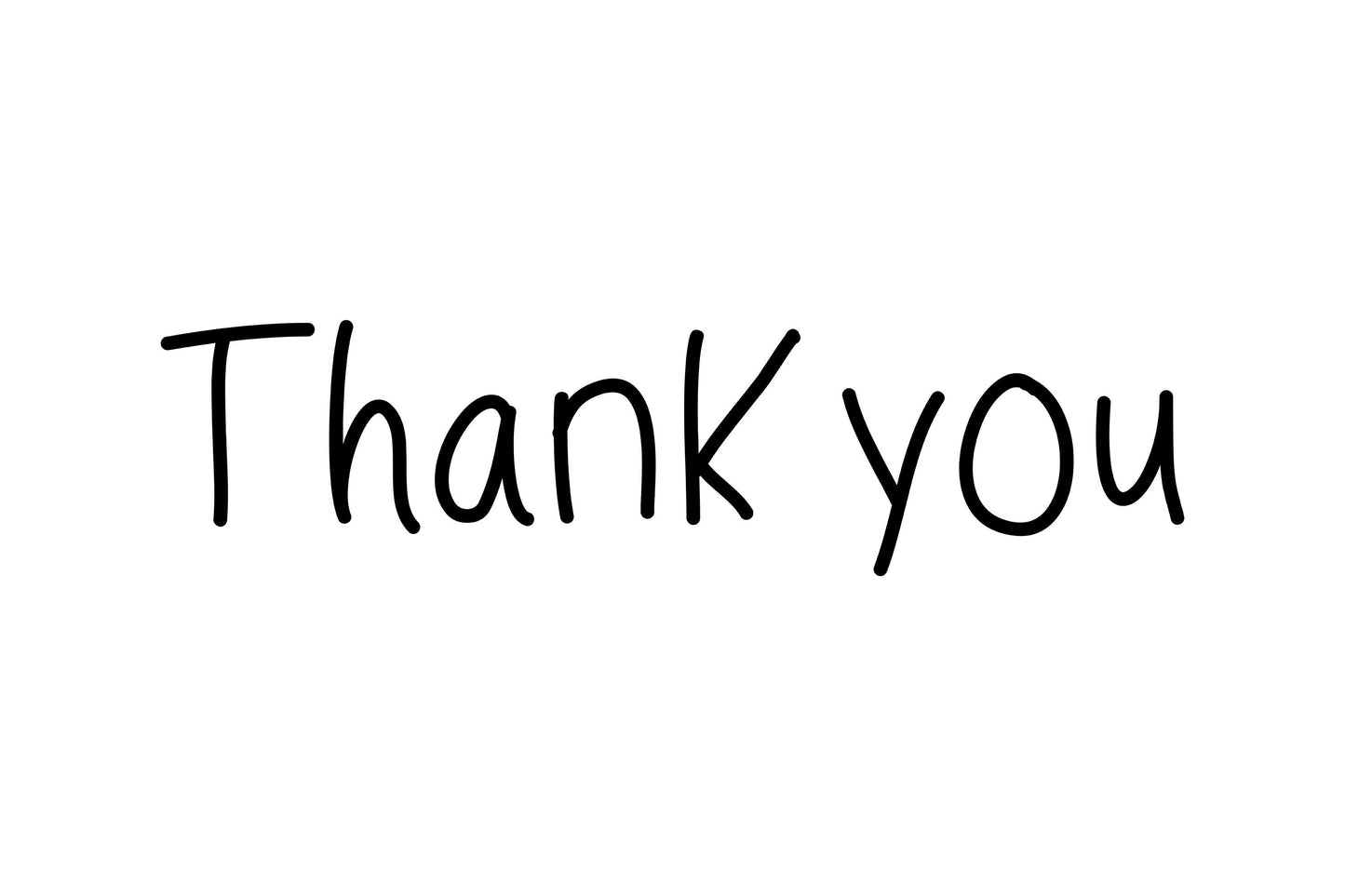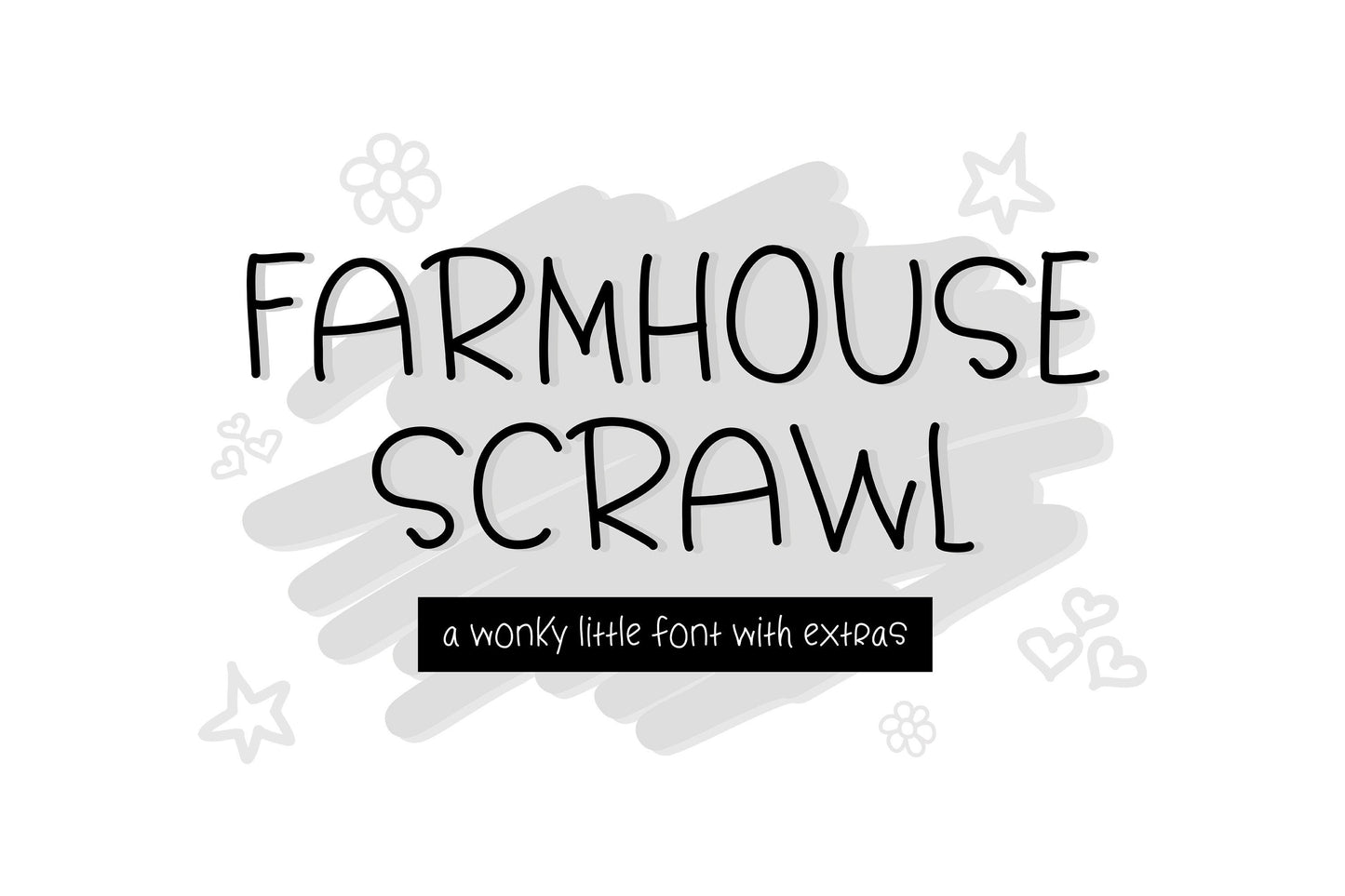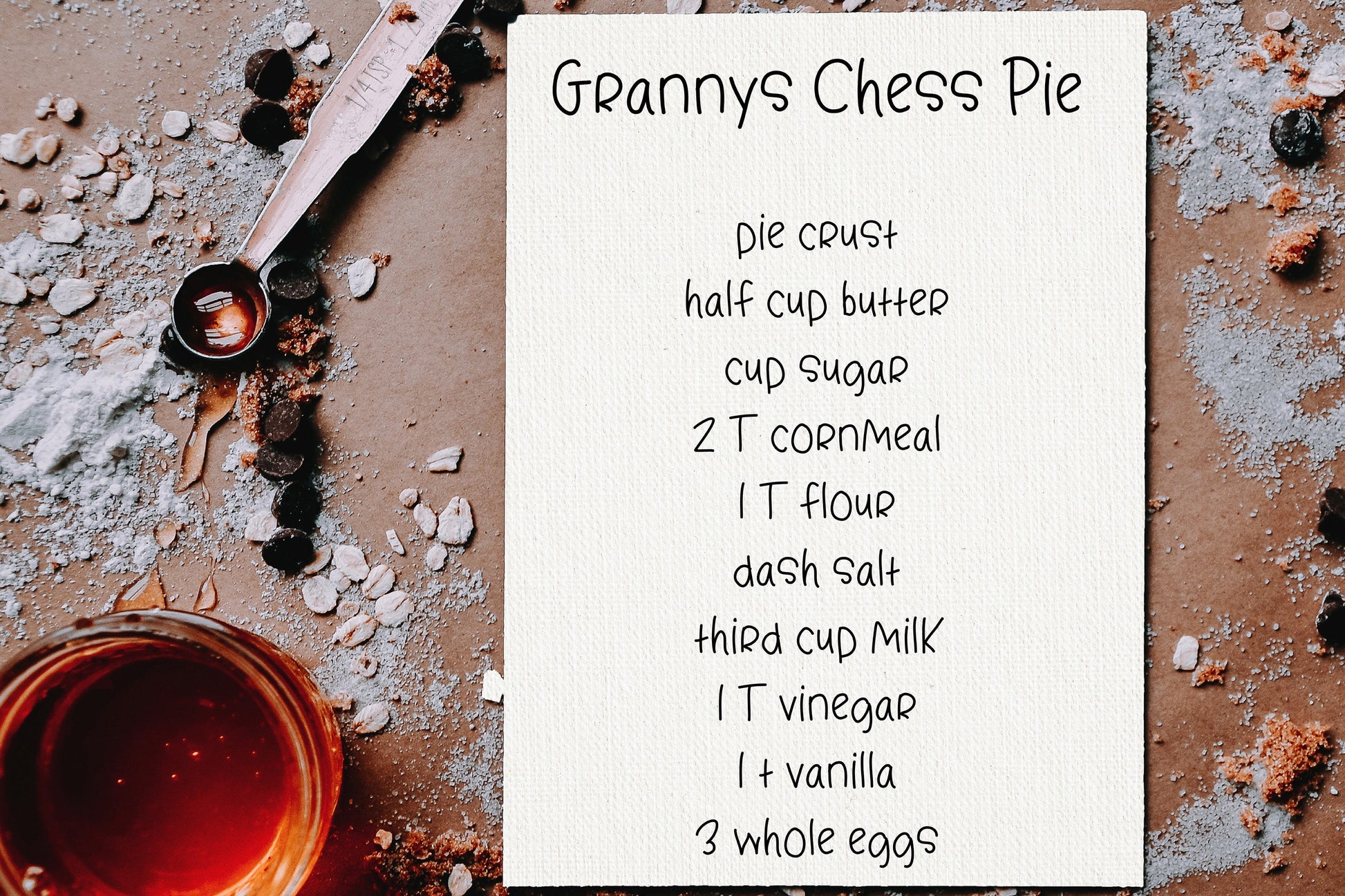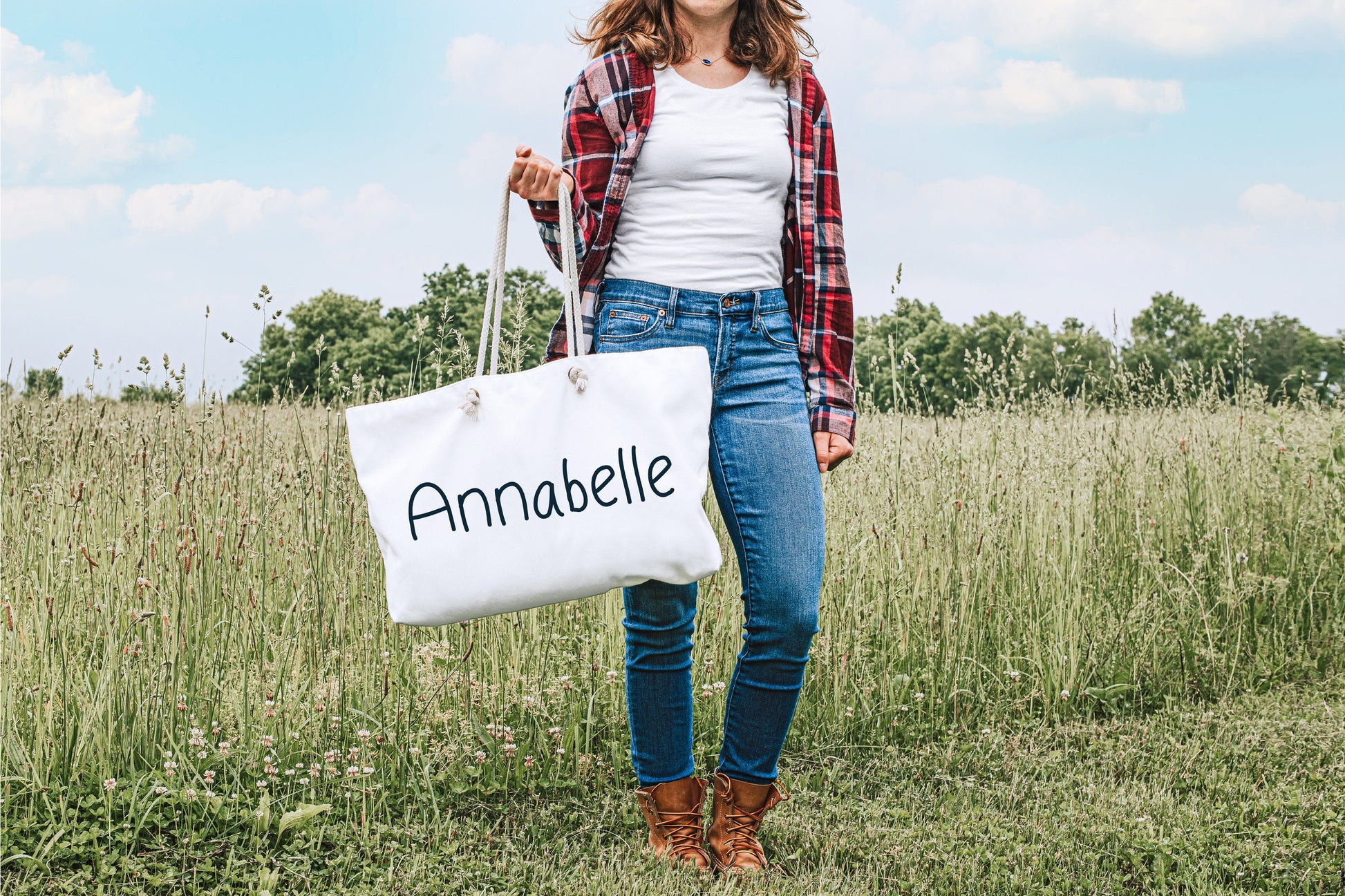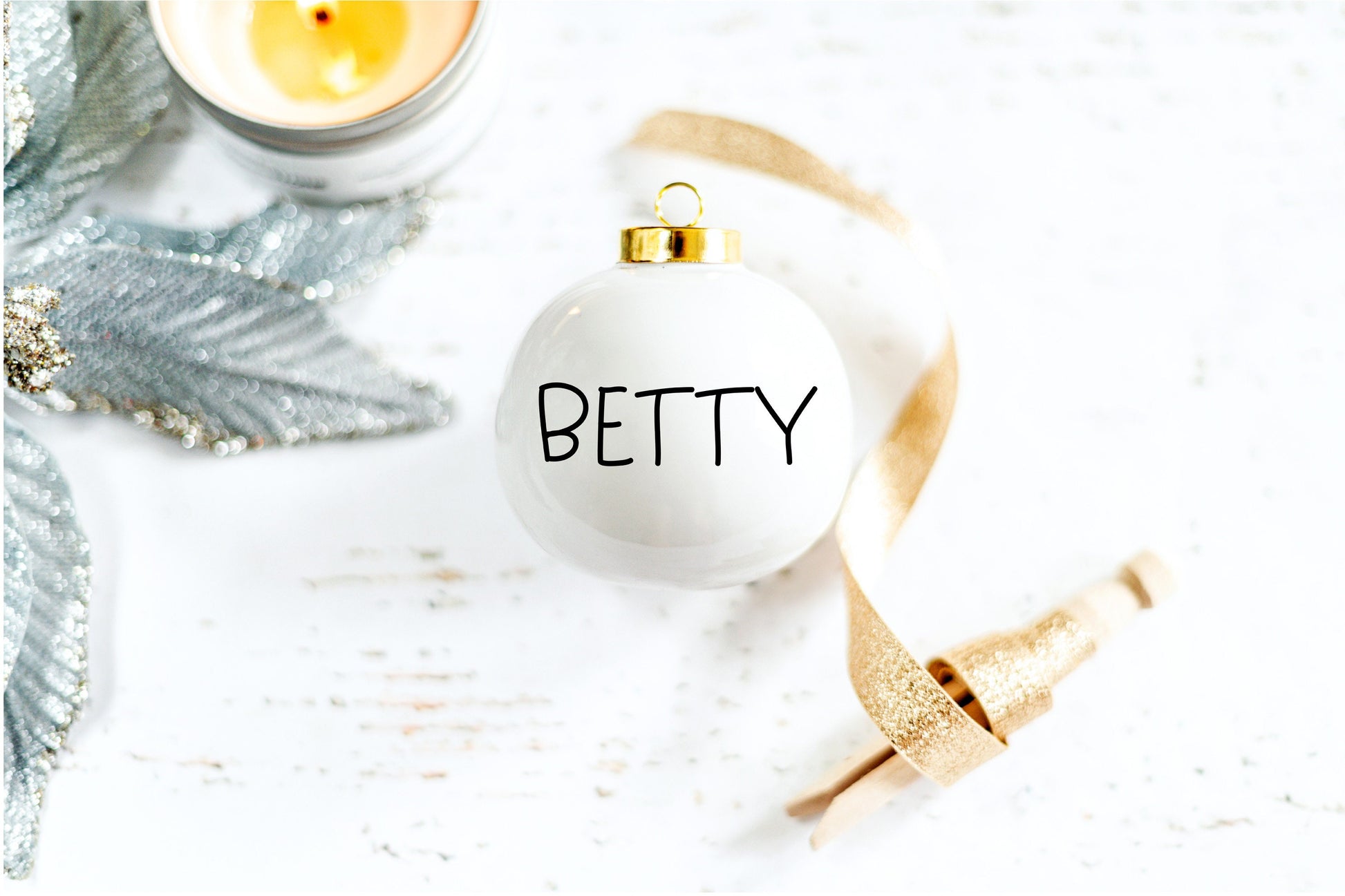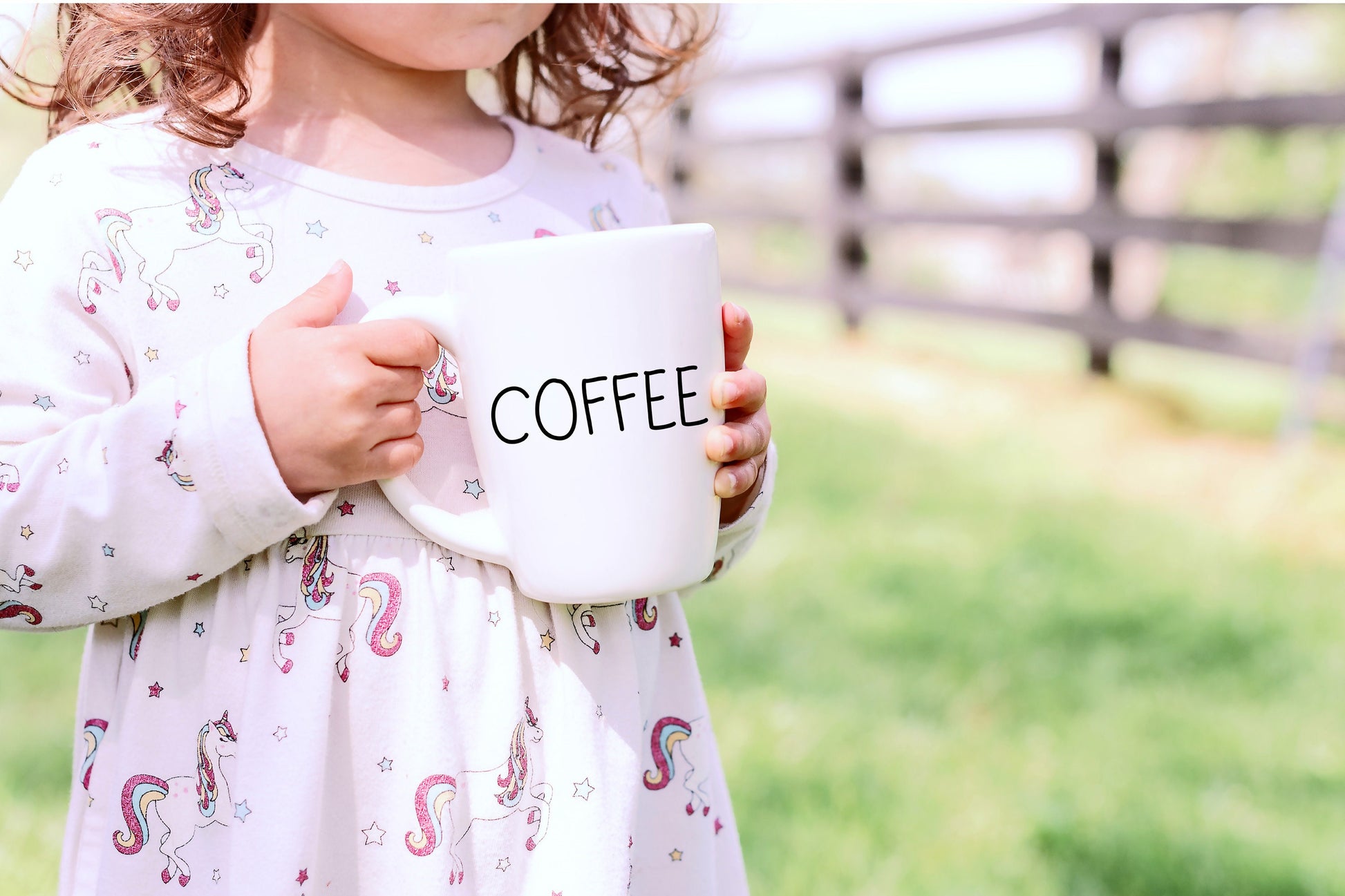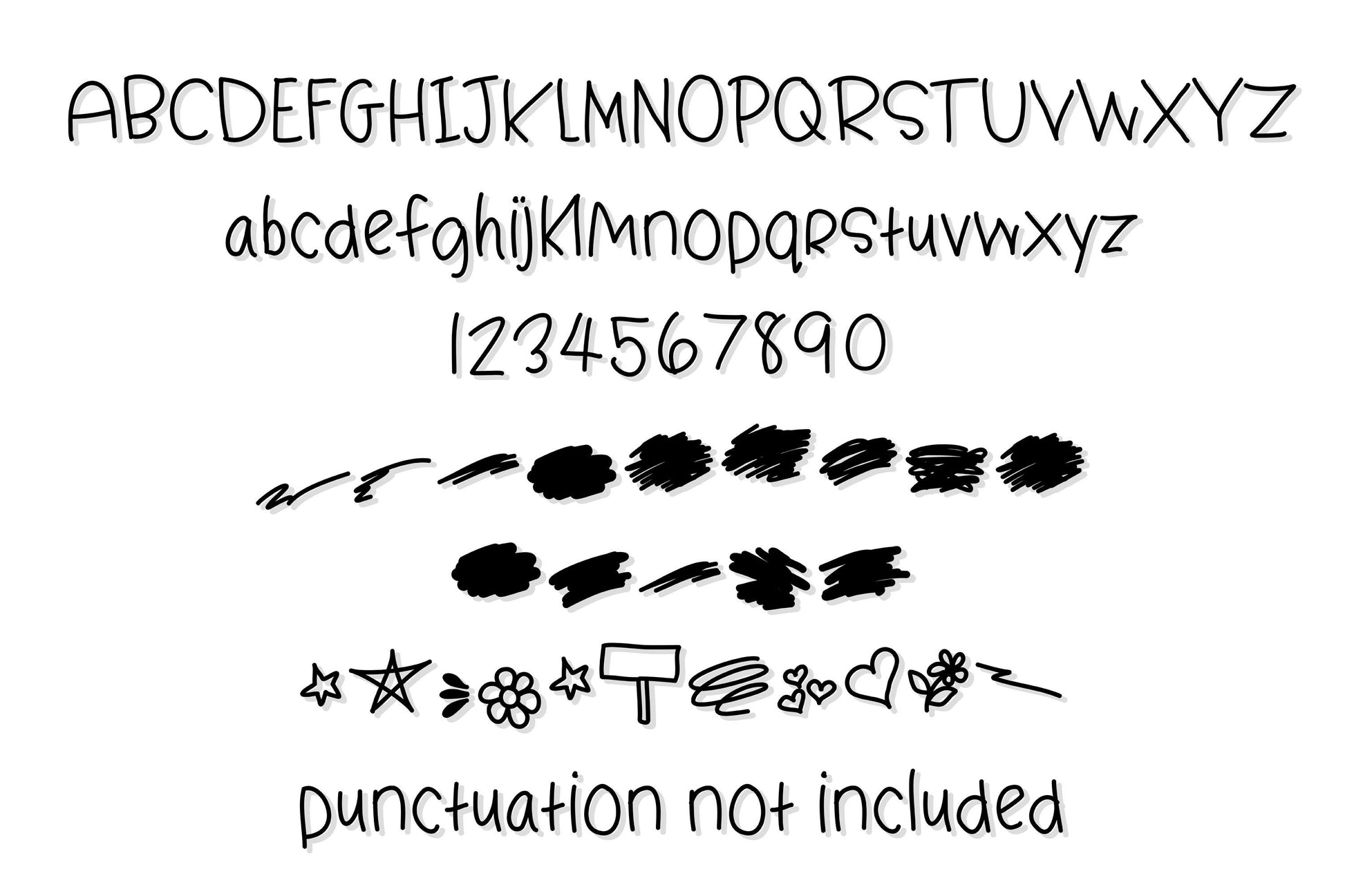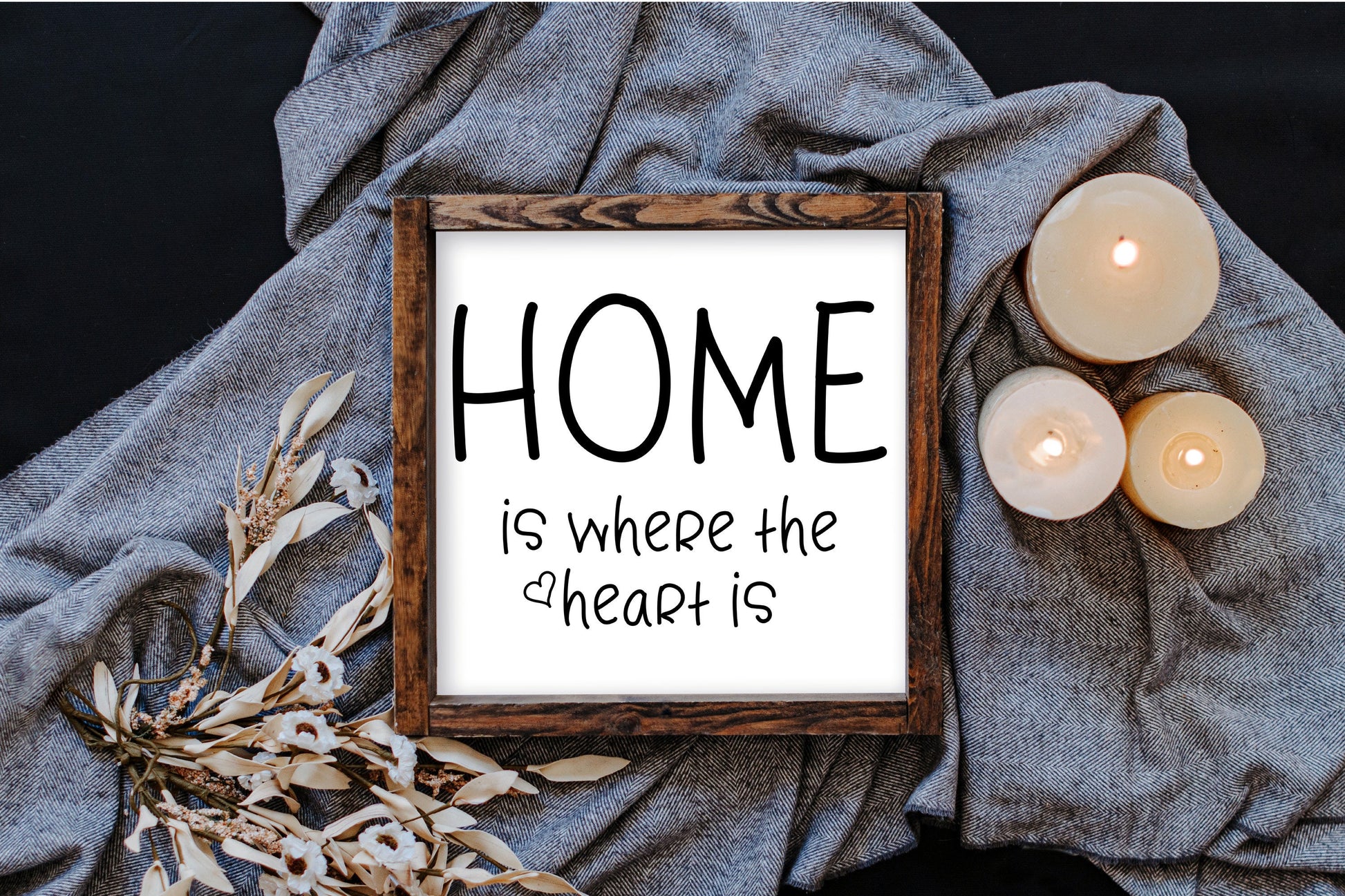
Introducing "Farmhouse Scrawl" β a charmingly wonky font that's your go-to choice for adding rustic flair to your projects. This playful typeface captures the essence of handwritten farm signs and exudes a delightful, imperfect charm that's perfect for all things rustic.
π‘ Rustic Elegance: "Farmhouse Scrawl" brings a touch of rustic elegance to your designs. Its slightly uneven strokes and handcrafted feel evoke the warmth and charm of a countryside farmhouse.
πΎ Versatile and Playful: This font is your creative playground for rustic-style projects. Whether you're designing farmhouse signs, vintage labels, or invitations, "Farmhouse Scrawl" adds a playful and rustic touch.
ποΈ Imperfect Beauty: The font's wonky lines and quirky characters celebrate the beauty of imperfection, giving your designs a unique and inviting appeal.
πΏ Doodles and Swashes: In addition to the font, "Farmhouse Scrawl" includes a delightful collection of extra doodles and swashes that complement your text with rustic embellishments, allowing you to tell your story with flair.
π Complete Character Set: "Farmhouse Scrawl" includes a full set of uppercase and lowercase letters, numerals, punctuation, and special characters, ensuring you have all you need to create captivating rustic designs.
π Endless Creativity: Use "Farmhouse Scrawl" for branding, packaging, posters, and more, infusing a touch of farmhouse charm into every project.
π¨ Mix and Match: Combine the font with the included doodles and swashes to craft custom rustic compositions that reflect your unique style.
π» Capture the Farmhouse Feel: With "Farmhouse Scrawl," your designs can effortlessly capture the warm, inviting, and timeless feel of a countryside farmhouse.
π Celebrate Rustic Style: Let "Farmhouse Scrawl" be your creative companion as you celebrate the rustic style in all its wonky, handwritten glory.
"Farmhouse Scrawl" is more than a font; it's a journey to the heart of rustic design. Embrace the charm of imperfection and bring a touch of countryside warmth to your projects with "Farmhouse Scrawl" today!
This font includes uppercase, lowercase, numbers and doodles. No punctuation is included.